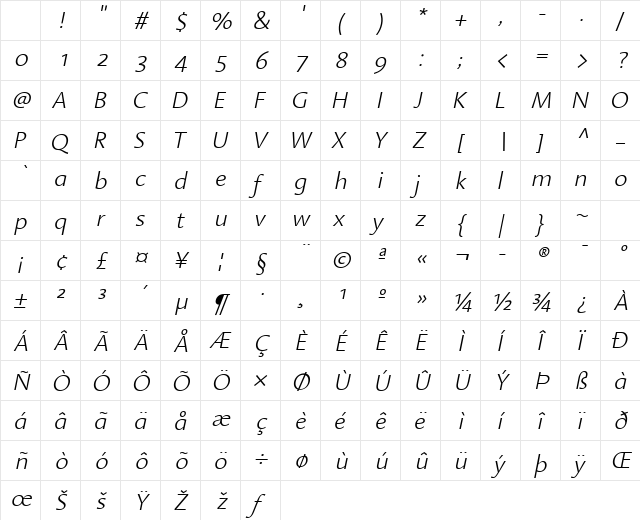
LTAroma Light Italic Free Font
LTAroma Light Italic
Designer: Tim Ahrens
Design Context for LTAroma Light
LTAroma Light is a composed and adaptable typeface that performs quietly and consistently across a wide range of design contexts. The slanted form adds forward momentum and visual energy. Its slender proportions lend an understated elegance to any composition.